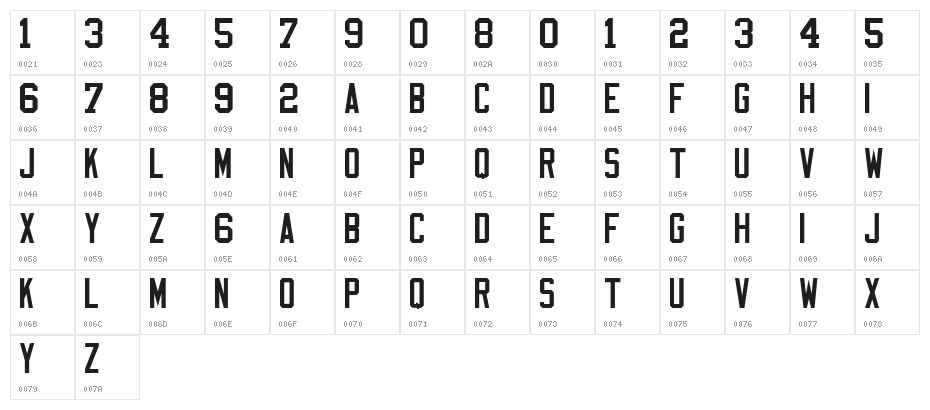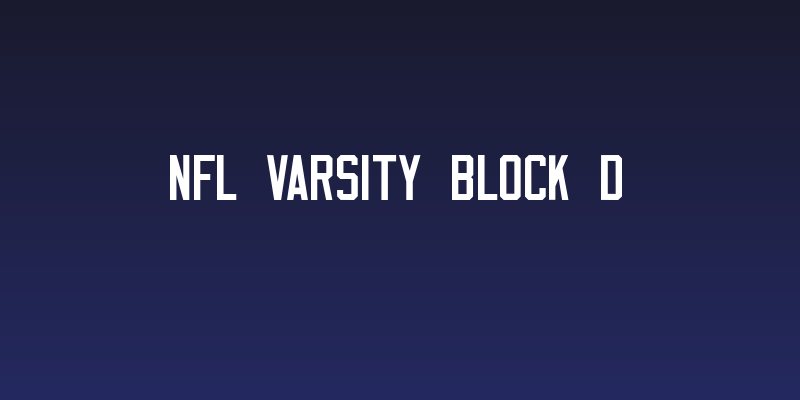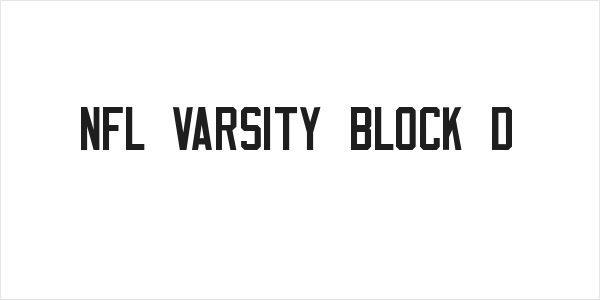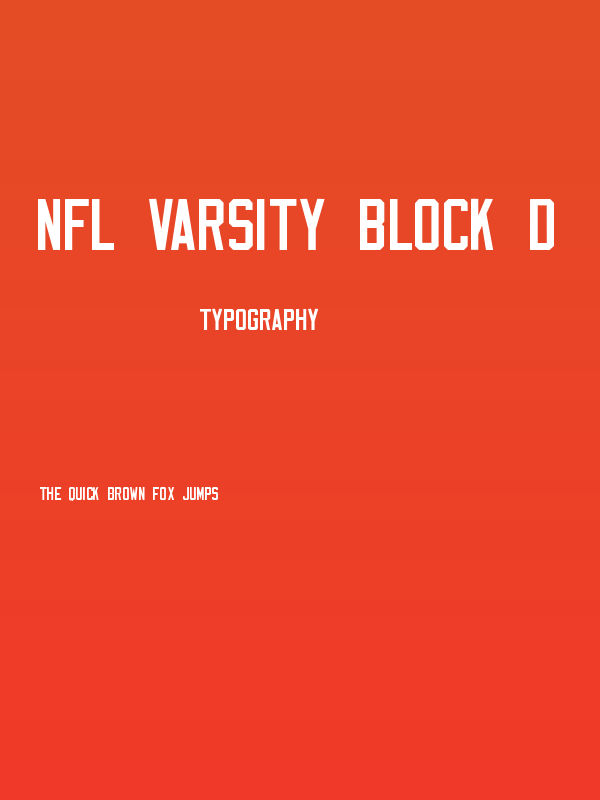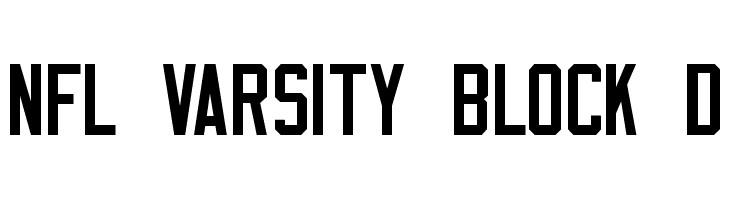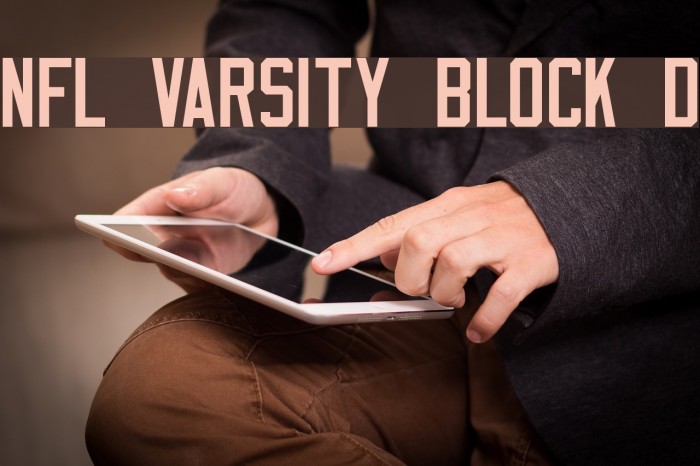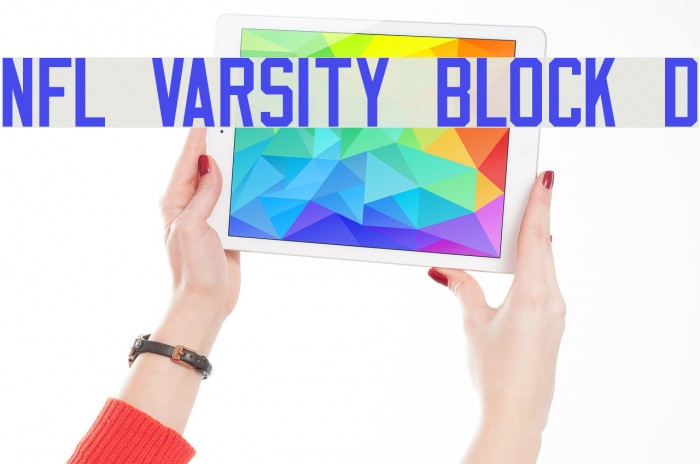
NFL Varsity Block D Font
NFL Varsity Block D Description
This font features a bold and robust design with a strong presence, characterized by its blocky and angular letterforms. The uppercase letters are particularly striking, with a uniform height and width that convey a sense of stability and strength. The numbers and special characters maintain this consistent style, making the font ideal for creating a cohesive and impactful visual identity. The font's geometric shapes and clean lines give it a modern yet timeless appeal, suitable for a variety of design applications.